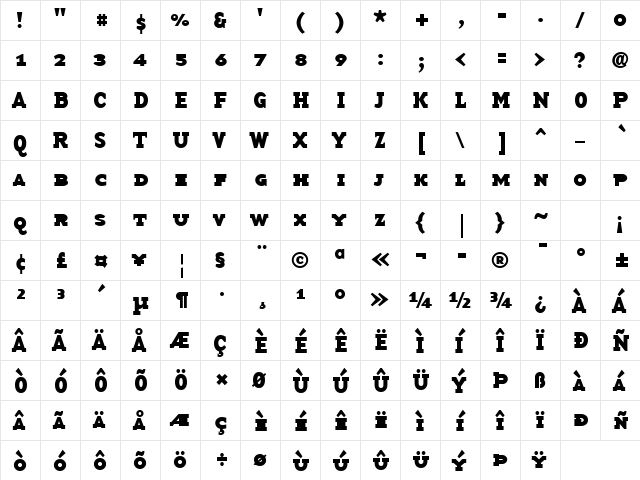
BaseTwSerifSmallCaps Bold
Design Context for BaseTwSerifSmallCaps Typeface
BaseTwSerifSmallCaps carries the refined structure of traditional serif typography, with bracketed terminals and considered proportions that communicate credibility and craft. The heavy weight commands attention and anchors typographic hierarchies.